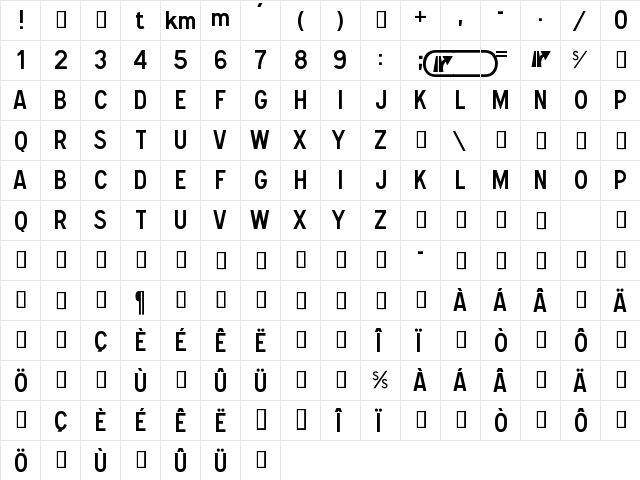
Caracteres L2 Regular
Design Context for Caracteres L2 Typeface
Caracteres L2 offers clean, dependable letterforms without strong stylistic allegiance, making it a practical choice for designers who need flexibility.